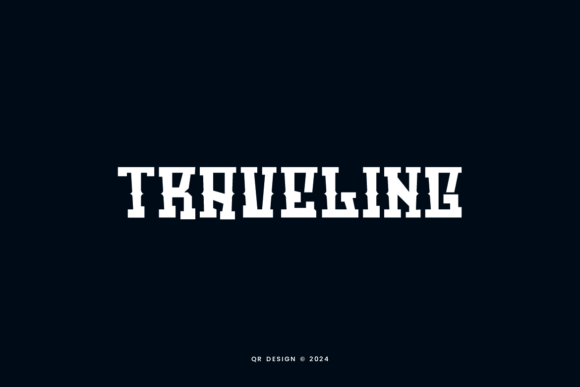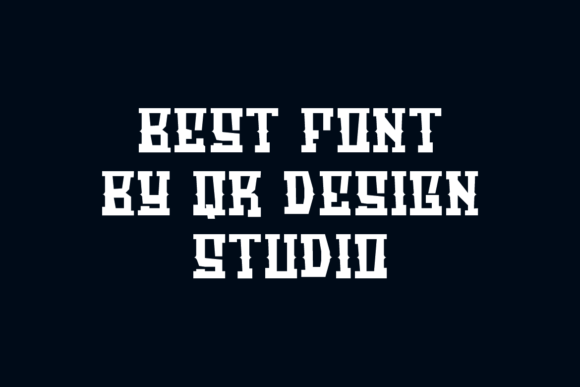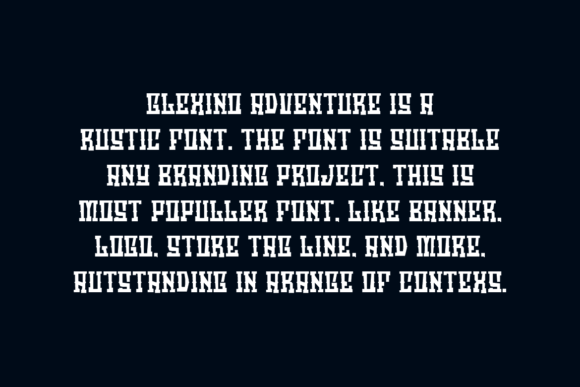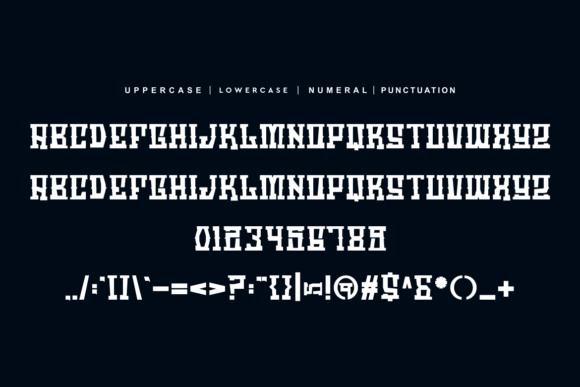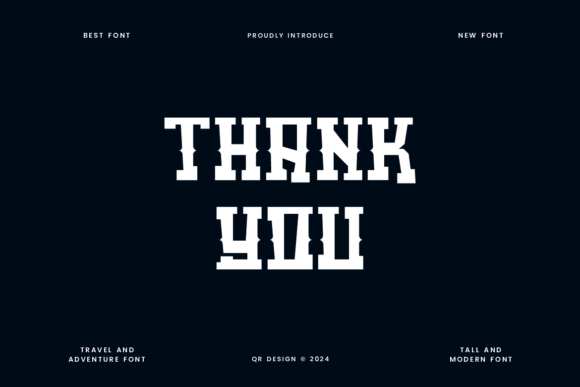
Glexino Adventure Font: The Ultimate Display Font for Bold Branding
Are you looking for a font that can add a touch of adventure and excitement to your branding projects? Look no further than the Glexino Adventure Font. This bold and authentic display font is perfect for designers and crafters who want to create stunning logos, sport-related designs, and more. In this article, we’ll dive into the features and benefits of the Glexino Adventure Font and explore how it can elevate your branding projects.
What is Glexino Adventure Font?
Glexino Adventure Font is a carefully crafted display font designed to make a statement. Its bold and authentic style makes it perfect for use in a wide range of contexts, from logos and branding to sports and outdoor-related designs. The font’s unique and adventurous vibe is sure to capture the attention of your audience and leave a lasting impression.
Key Features of Glexino Adventure Font
- Bold and Authentic Style: The Glexino Adventure Font boasts a bold and authentic style that’s perfect for making a statement.
- Versatile: This font is suitable for use in a wide range of contexts, including logos, sport, and many more.
- High-Quality Design: The font is carefully crafted with attention to detail, ensuring a high-quality design that’s both visually appealing and functional.
- Easily Readable: Despite its bold style, the Glexino Adventure Font is easily readable, making it perfect for use in titles, headings, and more.
Benefits of Using Glexino Adventure Font
So, why choose the Glexino Adventure Font for your branding projects? Here are just a few benefits of using this amazing display font:
- Stand Out from the Crowd: With its bold and authentic style, the Glexino Adventure Font is sure to help your branding projects stand out from the crowd.
- Perfect for Logos and Branding: The font’s unique and adventurous vibe makes it perfect for use in logos and branding projects that require a bold and eye-catching design.
- Save Time and Effort: With the Glexino Adventure Font, you can create stunning designs in no time. The font is easy to use and customize, saving you time and effort.
- Professional Results: The Glexino Adventure Font is designed to deliver professional results. Its high-quality design and easily readable style make it perfect for use in a wide range of contexts.
Who Can Benefit from Glexino Adventure Font?
The Glexino Adventure Font is perfect for a wide range of designers and crafters, including:
- Graphic Designers: If you’re a graphic designer looking for a bold and authentic display font for your branding projects, the Glexino Adventure Font is a great choice.
- Logos and Branding Specialists: If you specialize in logos and branding, this font is perfect for creating stunning and eye-catching designs.
- Sport and Outdoor Designers: If you design for sport and outdoor-related brands, the Glexino Adventure Font is a great choice. Its adventurous vibe is perfect for creating designs that resonate with your audience.
- Crafters and Makers: If you’re a crafter or maker looking for a unique and bold font for your DIY projects, the Glexino Adventure Font is a great choice.
In conclusion, the Glexino Adventure Font is a bold and authentic display font that’s perfect for designers and crafters who want to create stunning branding projects. Its unique and adventurous vibe makes it perfect for use in logos, sport, and many more. With its high-quality design, easily readable style, and versatile nature, this font is sure to elevate your branding projects and help you stand out from the crowd.